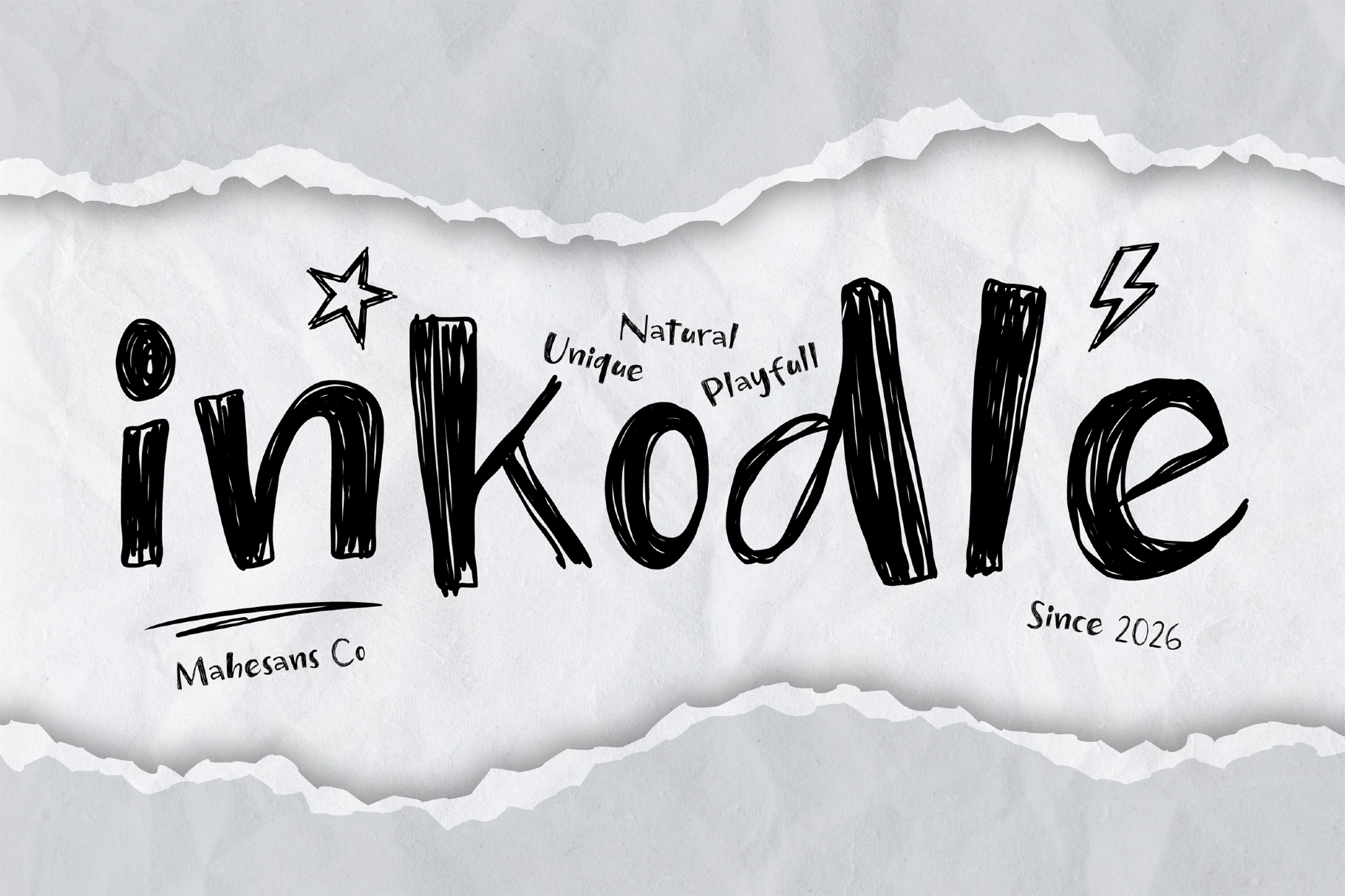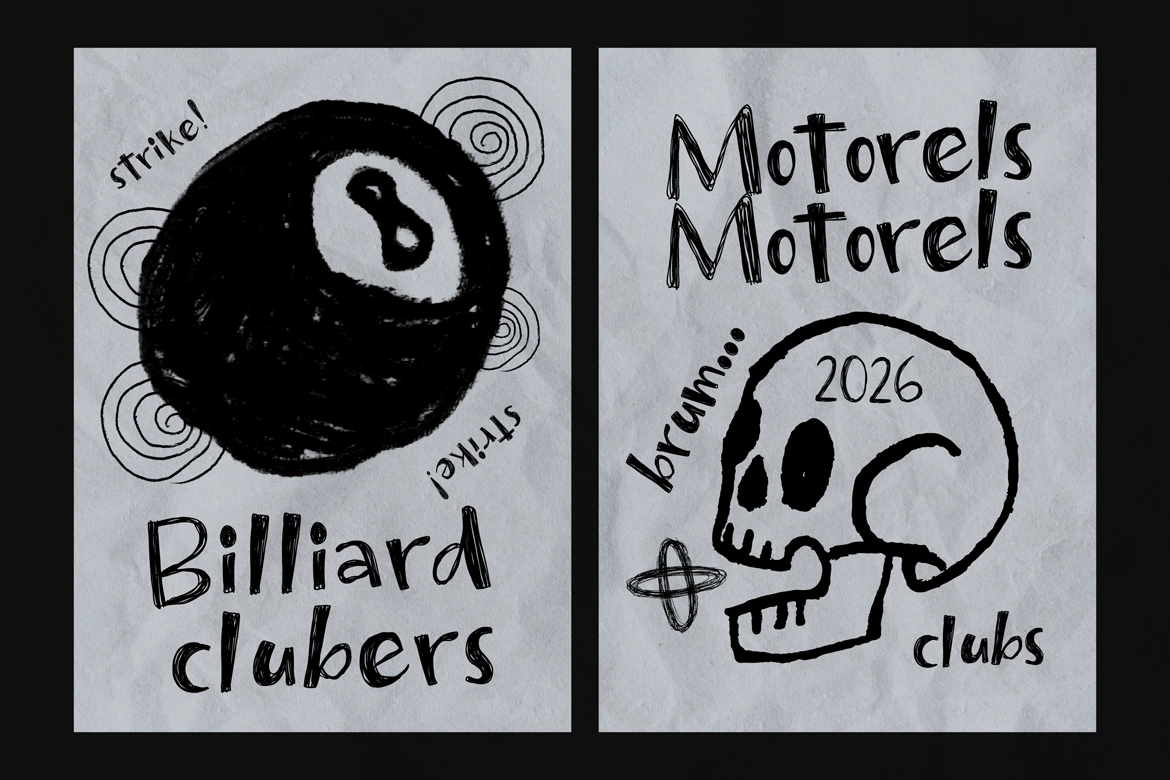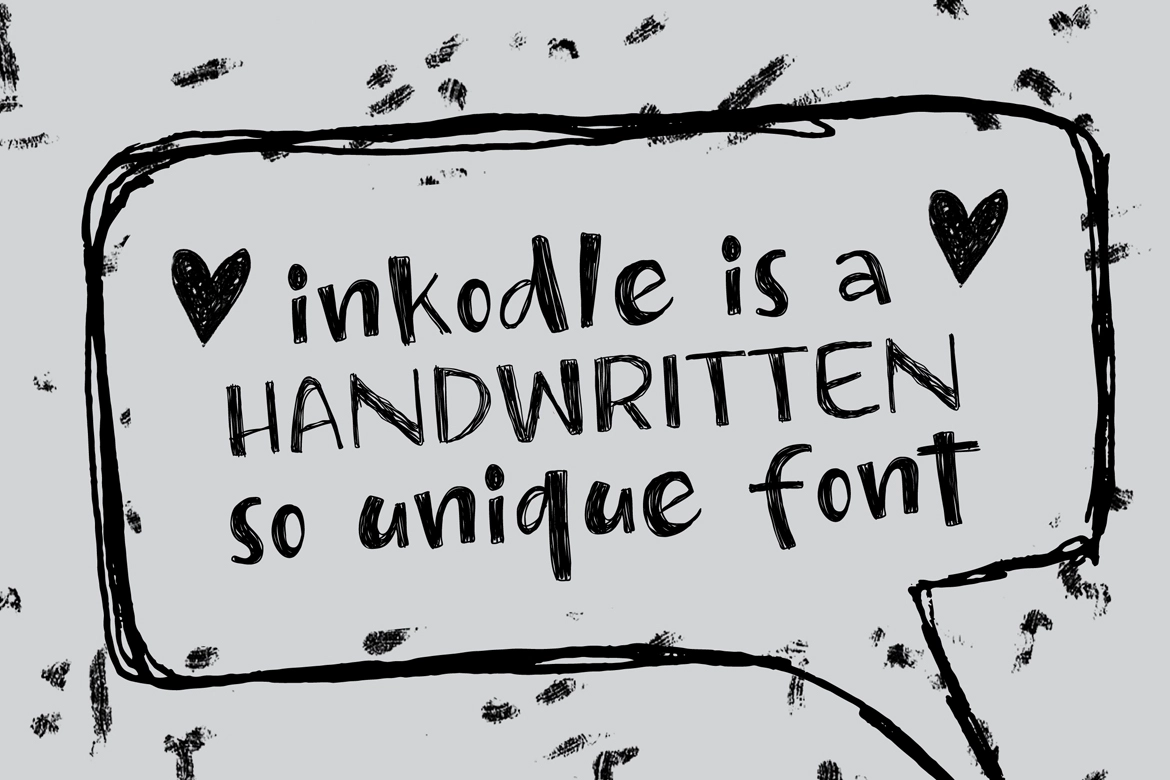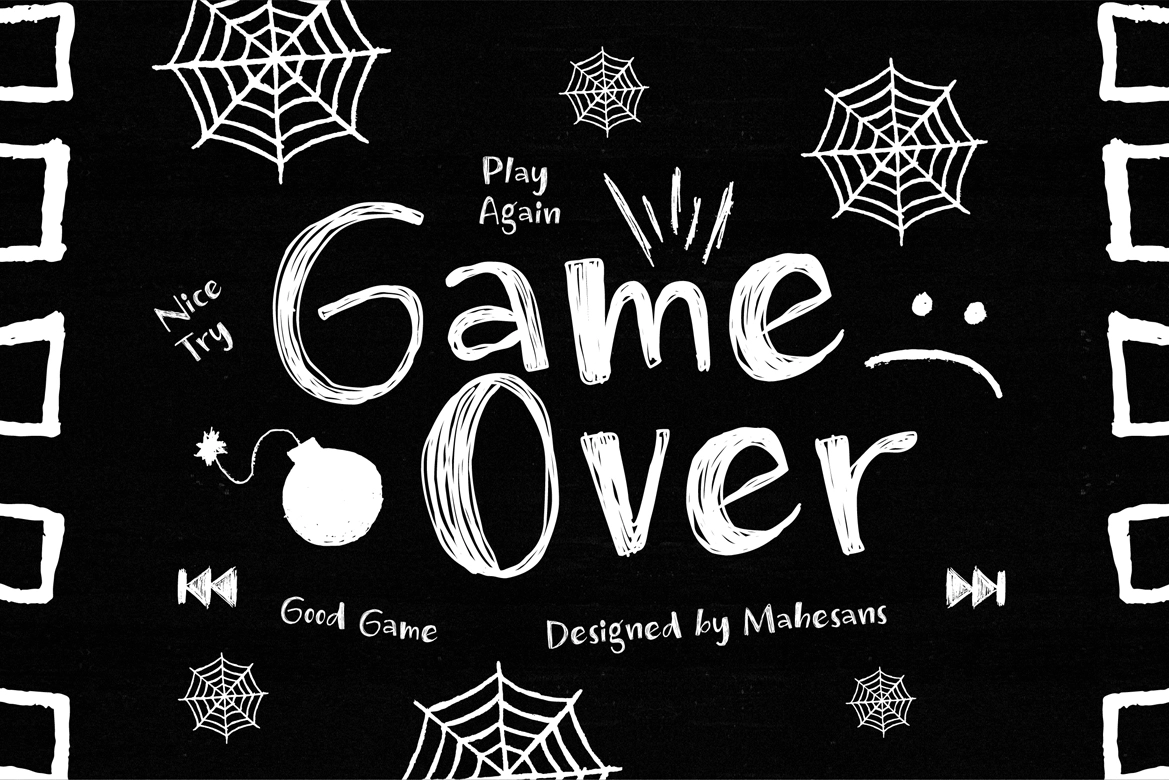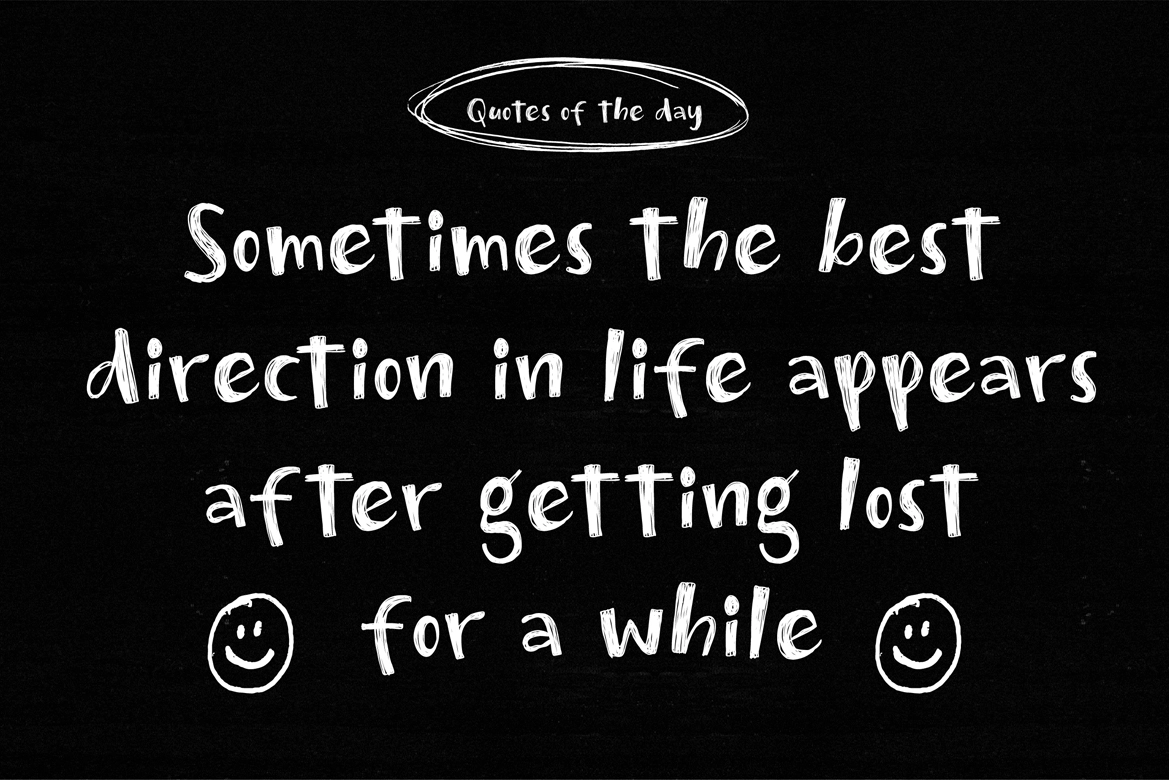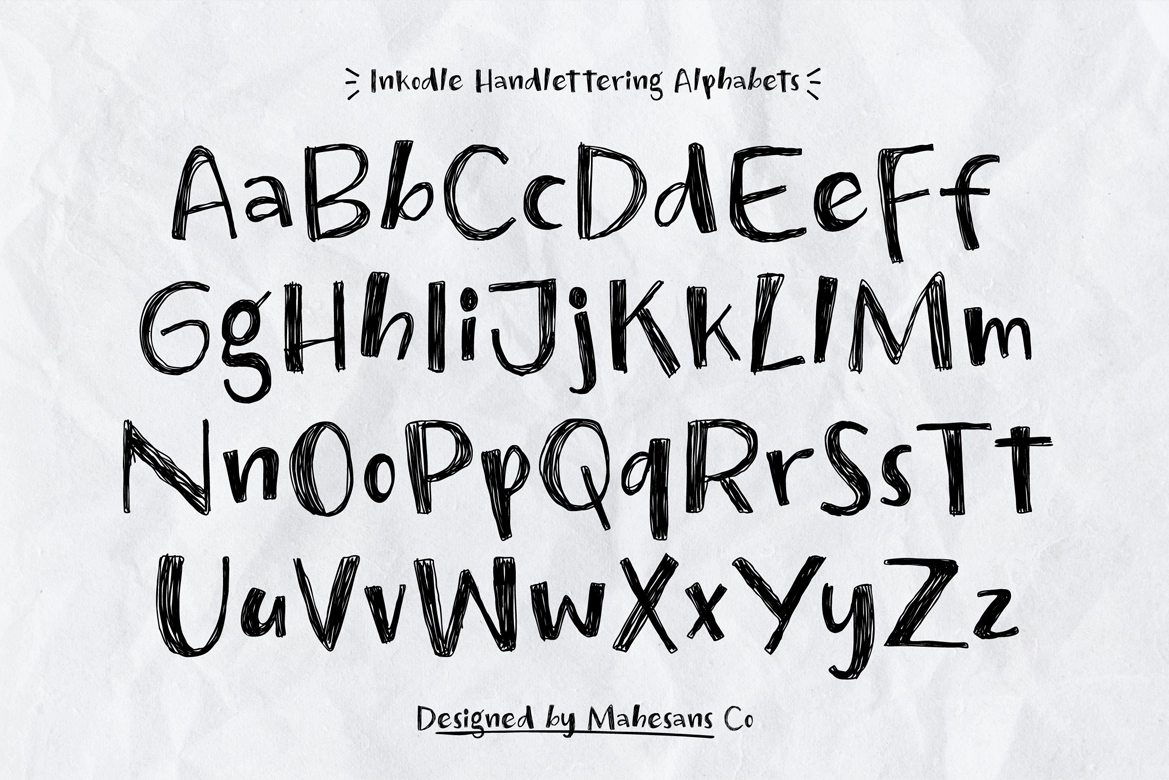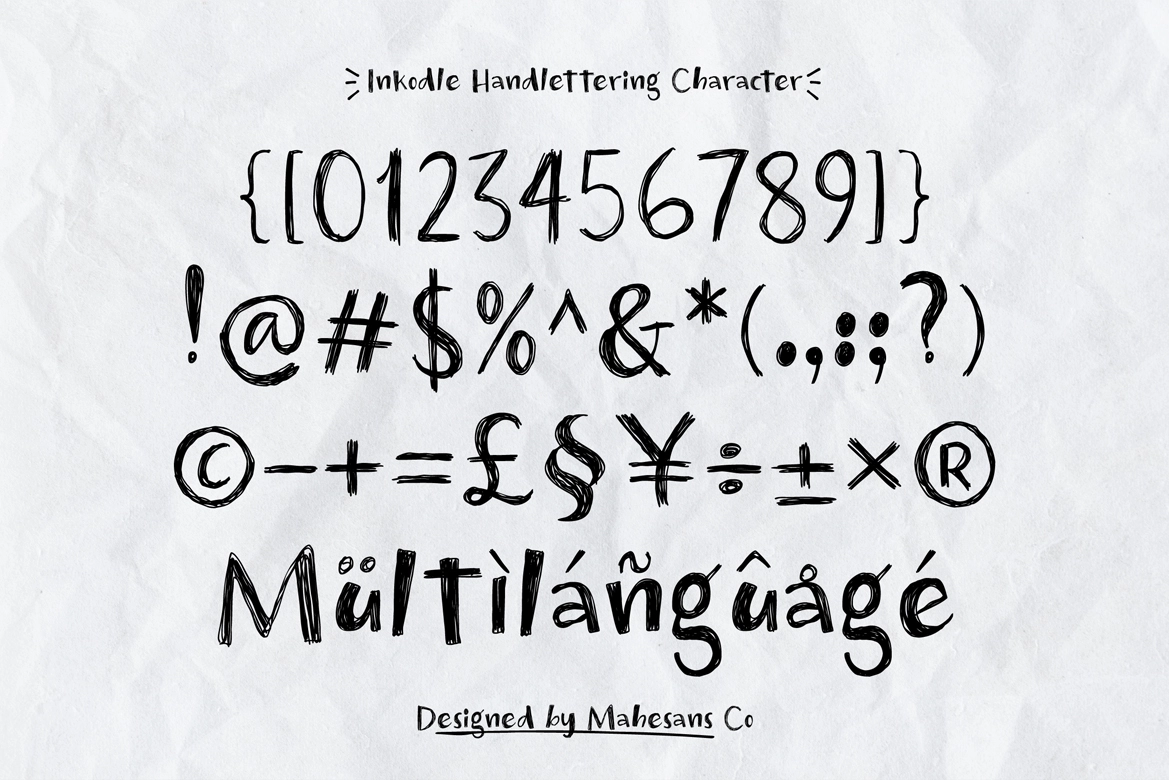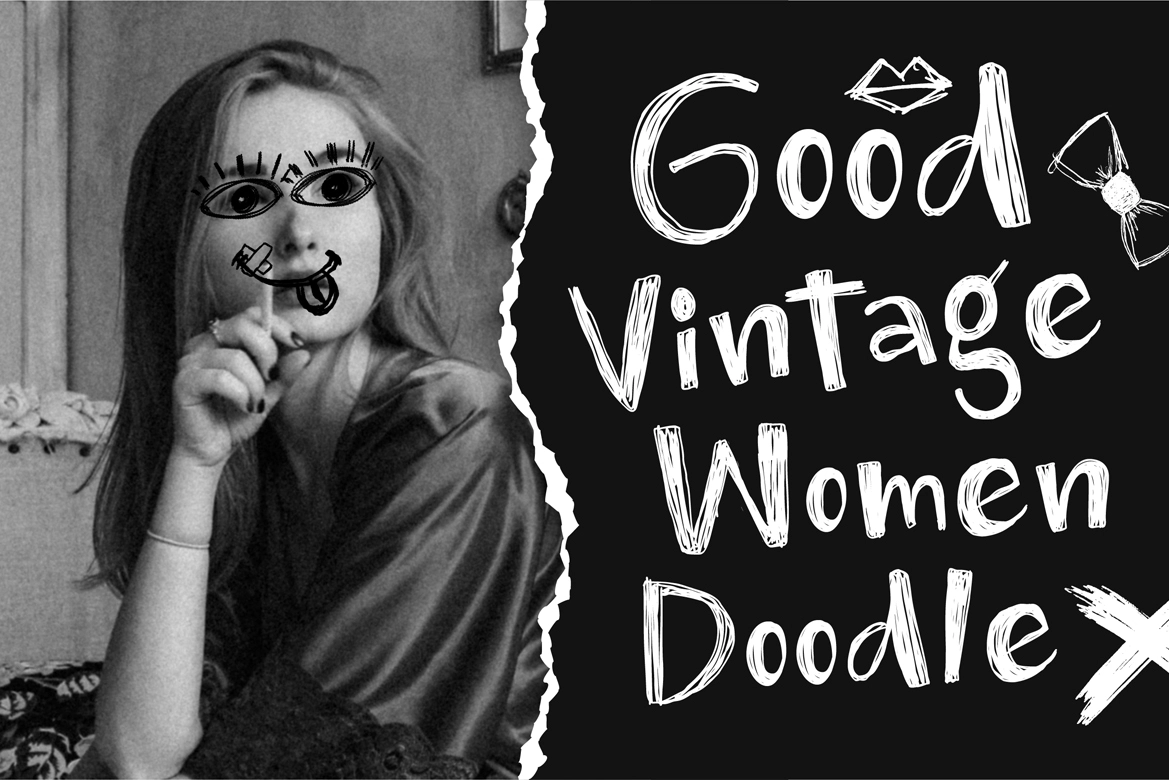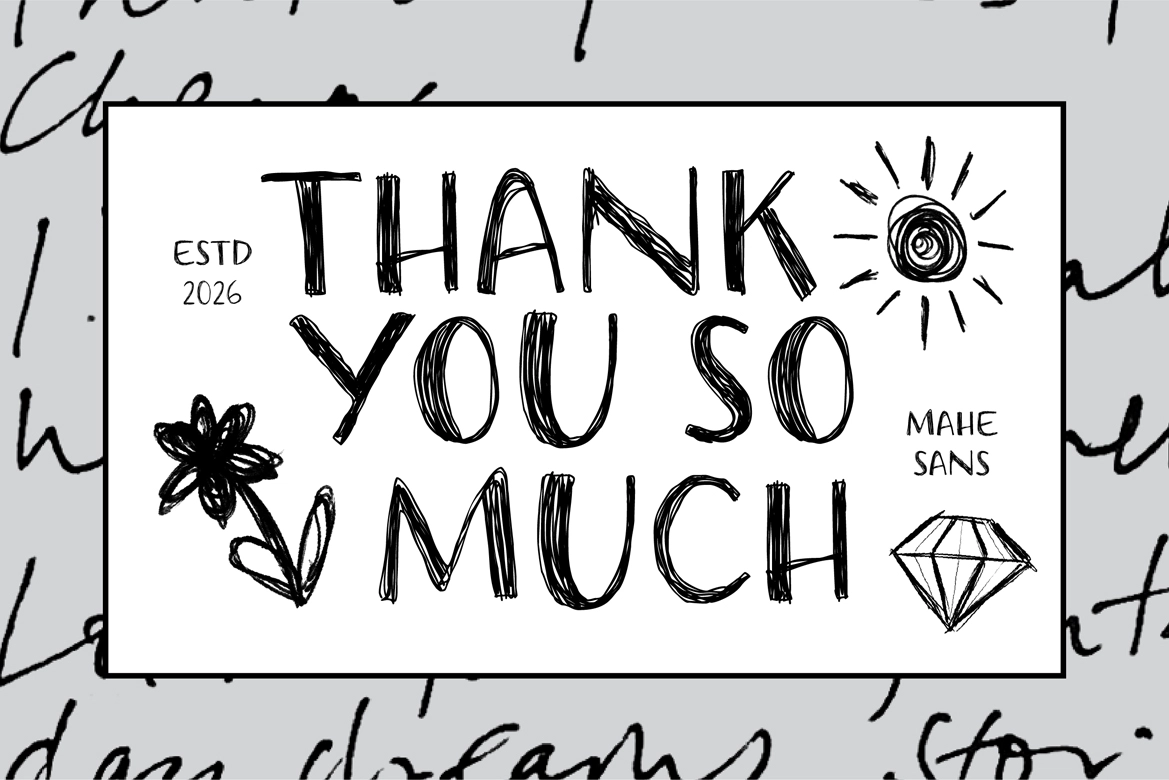
Inkodle – Handwritten Sketch Font
Inkodle
This playful handwritten typeface has a rough marker texture, uneven strokes , and quirky letter shapes that look direct, casual, and hand-drawn. Its sketchy rhythm gives creative work a friendly personality, with enough looseness for kids’ designs, craft projects, posters, and upbeat branding.
Inkodle is made for children’s branding, storybook covers, classroom posters, DIY kits, social media graphics, sticker packs, T-shirt designs, packaging, playful logos, event flyers, school projects, creator merch, and more. Alternates add variety across repeated letters, so headlines and short phrases can look spontaneous without losing readability.